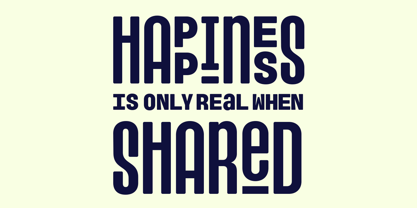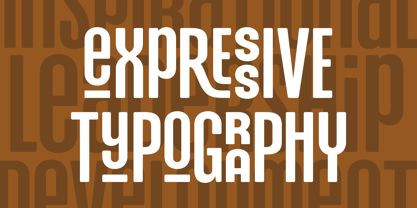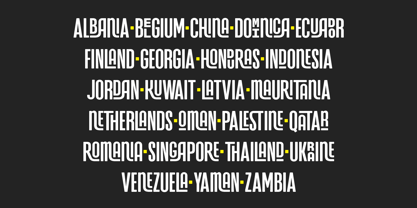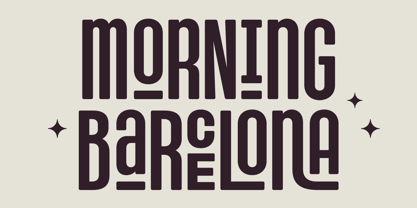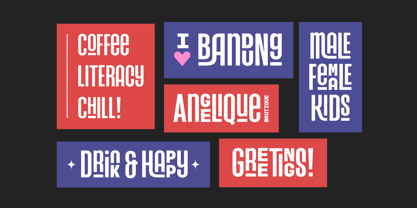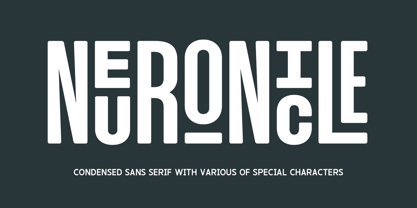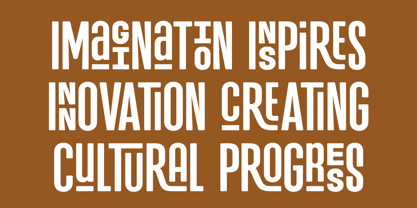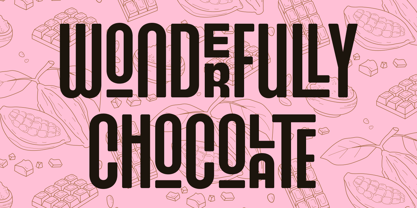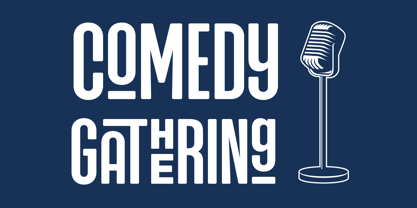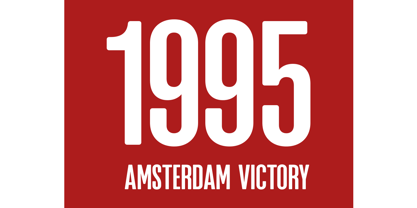
Neuronicle
by Arterfak Project
The Neuronicle Font Family was designed by Ahmad Ramzi Fahruddin and published by Arterfak Project. Neuronicle contains 2 styles and family package options. More about this family
Introducing our latest exploration, Neuronicle.
A condensed sans font with a playful and expressive character. Its bold weight and rounded corners create a relaxed yet elegant impression — striking the perfect balance between fun and sophistication.
Neuronicle is designed to shine in headlines and display use. Packed with a wide range of ligatures, special alternates, and small caps, you can mix and match styles to craft dynamic, joyful, and highly creative typography compositions.
• All capital character set
• Numbers
• Punctuation
• Symbols
• Stylistic alternates
• Stylistic sets 01-03
• Ligatures
• Accented characters